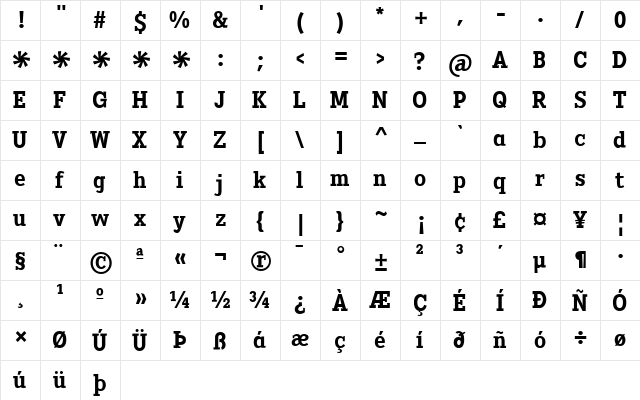
Heptal Bold Regular
| Foundry | deFharo |
| Designer | Fernando Haro |
Design Context for Heptal Bold Typeface
Heptal Bold is a composed and adaptable typeface that performs quietly and consistently across a wide range of design contexts. Its bold stroke weight gives it real presence on the page.